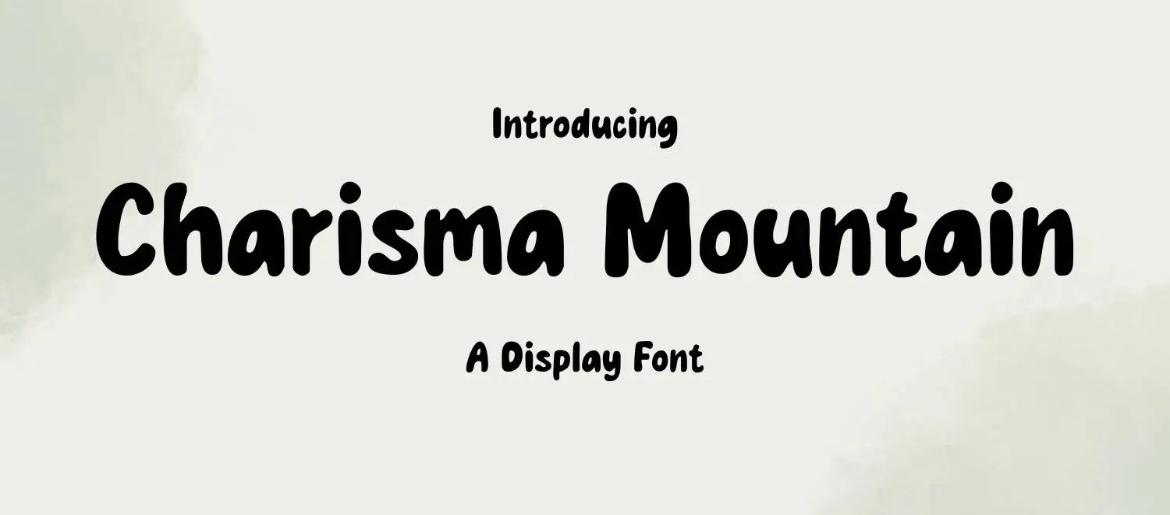
Charisma Mountain Font
Charisma Mountain Font is a bold, adventurous display typeface inspired by nature and rugged landscapes. With strong letterforms and a confident, handcrafted feel, it’s perfect for outdoor branding, logos, posters, apparel, and travel or lifestyle designs. Charisma Mountain brings strength, character, and an energetic spirit to any creative project.
➤ Font Name: Charisma Mountain
➤ Designer: MJType
➤ Style: Cartoon